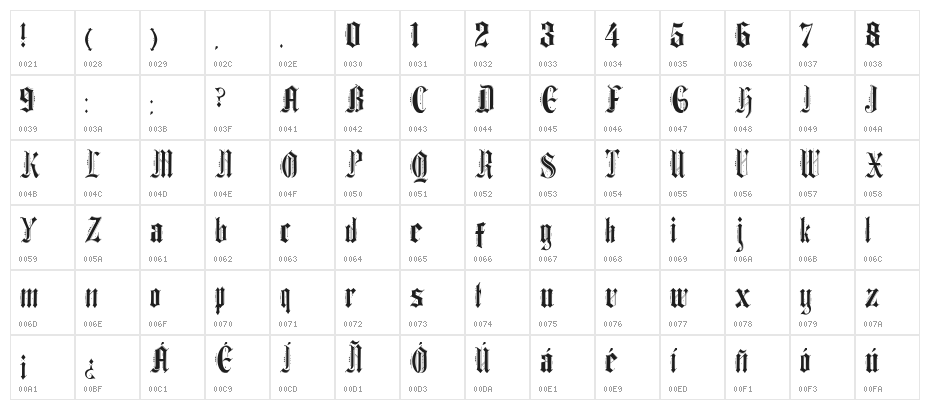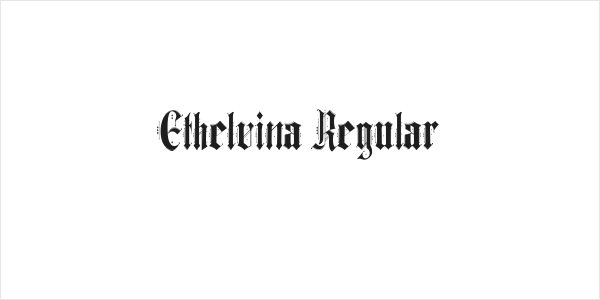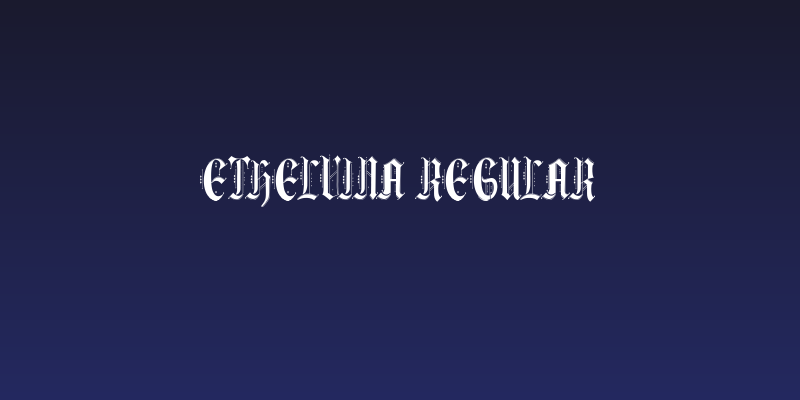
Ethelvina_Regular Font
Ethelvina_Regular Description
This font exhibits a classic blackletter style, characterized by its intricate and ornate letterforms. The uppercase and lowercase letters are designed with sharp, angular lines and decorative flourishes, reminiscent of medieval script. The numbers and special characters maintain the same elaborate style, ensuring consistency throughout. The font's bold strokes and high contrast between thick and thin lines give it a dramatic and impactful appearance. It is well-suited for projects that require a historical or gothic aesthetic.
| Proposed Projects | Ideal for vintage-themed designs, gothic posters, book covers, and branding that requires a historical touch. |